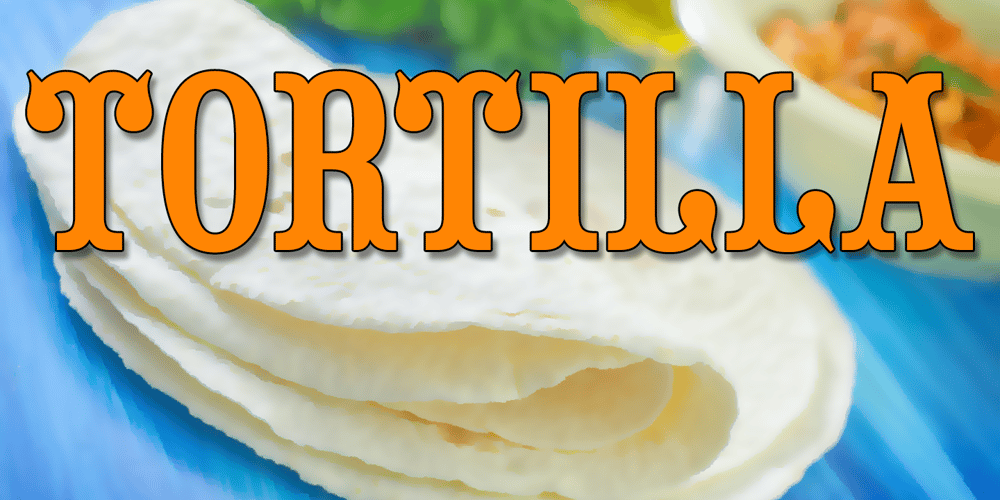
Tortilla
Tortilla font
Tortilla Font Family was designed by Michael Hagemann and published by FontMesa. Tortilla contains 24 styles and family package options. Tortilla is a flat sided version of our Saloon Girl and Tex Mex font families.When you want a smooth classic western font without spurs in the letters Tortilla is just right.Whether you’re making a new Mexican restaurant menu or a new logo for your cowboy boot and hat company Tortilla is the font you’re looking for.If you’re a pioneer in the culinary scene Tortilla is perfect for your next cookbook cover, chili cook off or barbecue competition.Just like our Saloon Girl and Tex Mex fonts Tortilla also has the option to work in layers using the fill fonts, to make a layered font image you’ll need an application that works in layers such as Illustrator or Photoshop.